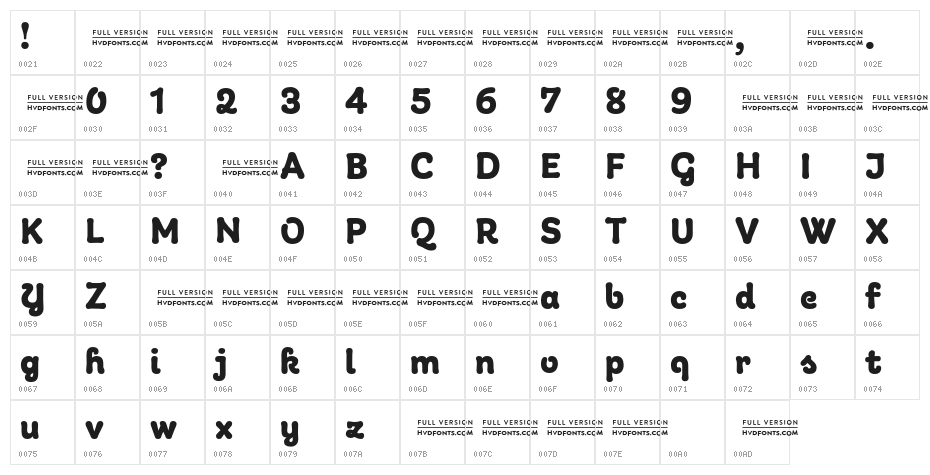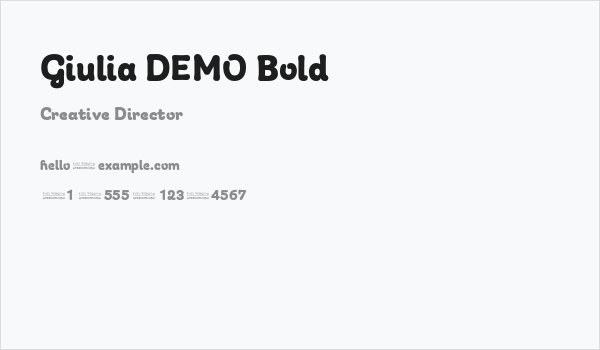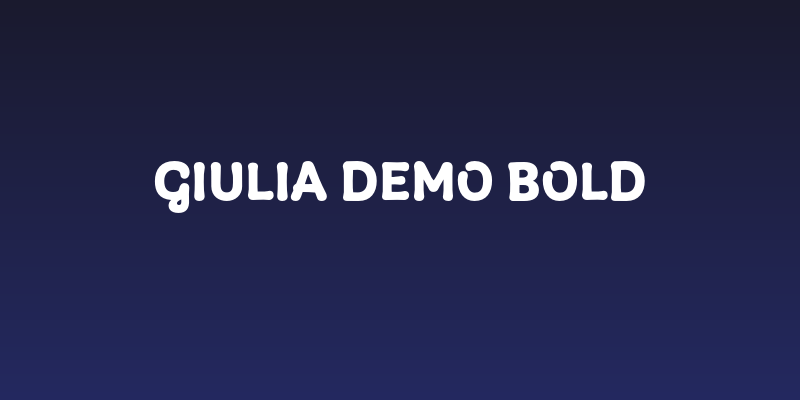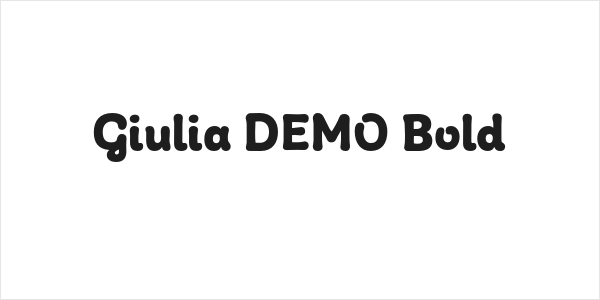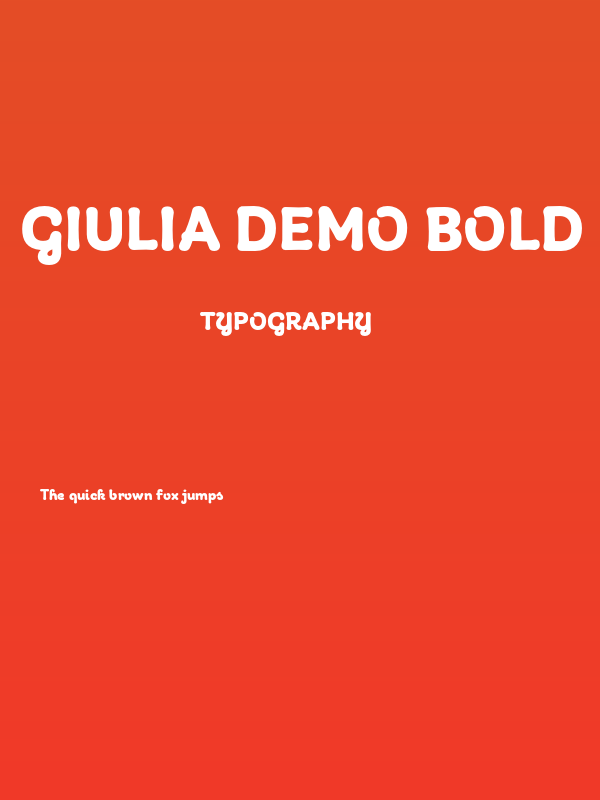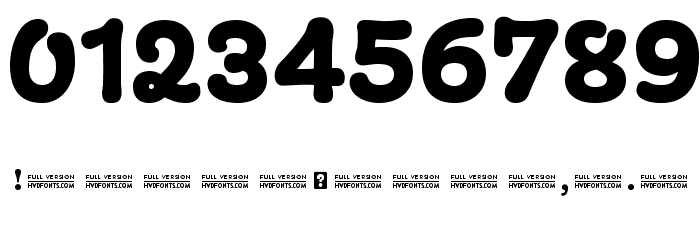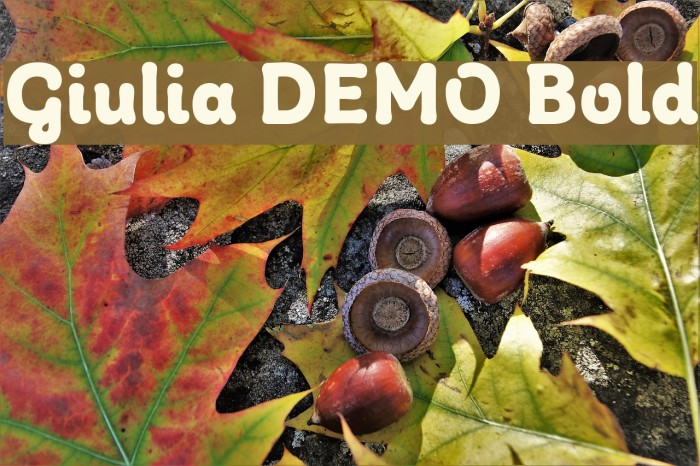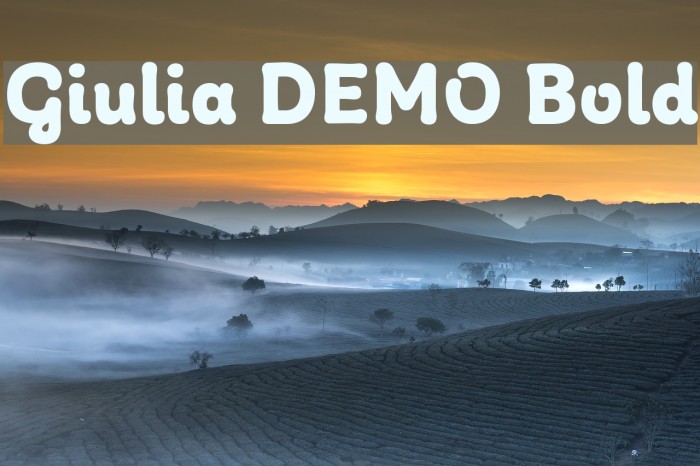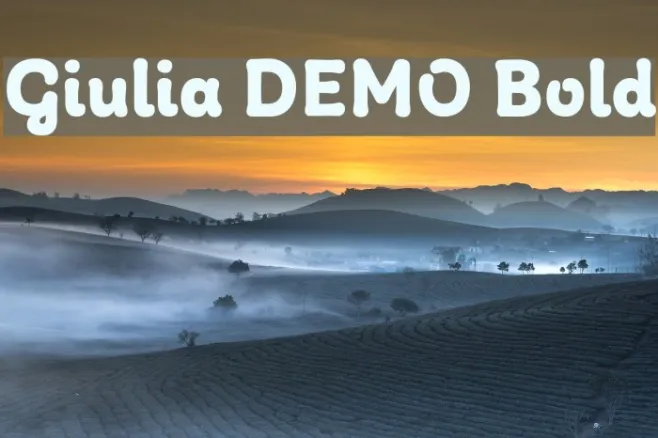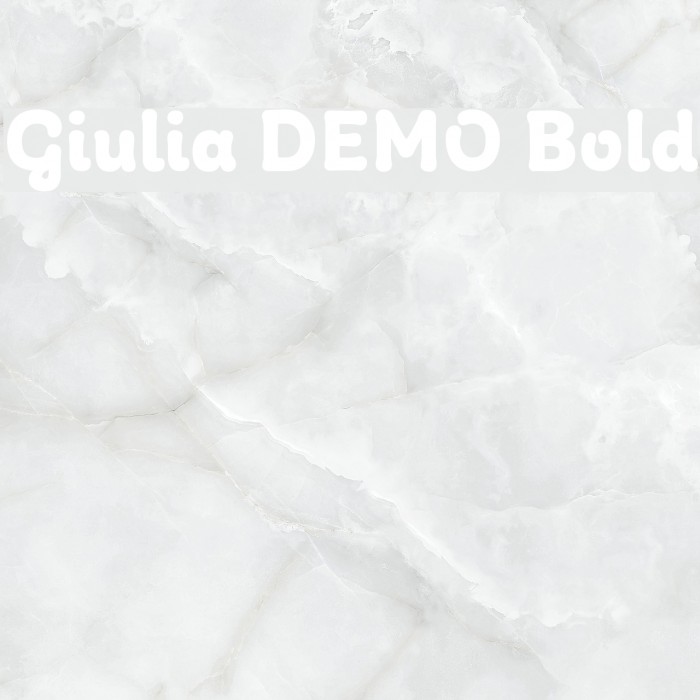
Giulia DEMO Bold Font
Giulia DEMO Bold Description
This font features a playful and rounded design, characterized by its bold and smooth curves. The letters are uniformly thick, giving a sense of solidity and friendliness. The uppercase and lowercase characters maintain a consistent style, with rounded edges and a slightly whimsical appearance. The numbers follow the same design principles, ensuring a cohesive look across all characters. This font is particularly suitable for projects that require a fun and approachable aesthetic, making it ideal for children's books, playful branding, or casual invitations.
| Overall Style | Playful, Friendly |
| Proposed Projects | Children's books, playful branding, casual invitations, posters, and social media graphics. |